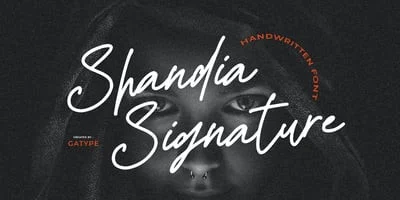
Shandia Signature Font
Shandia Signature Font is perfect for personal branding logos, handwritten wedding invitations, artisan business cards, boutique fashion labels, signature cocktail menus, creative agency identity, luxury stationery designs, personalized gift packaging, and intimate social media content. This elegant typeface brings authentic handwritten charm and personal sophistication to both digital and print design applications.
Shandia Signature Font is exciting because it captures the intimate beauty and personal authenticity of genuine handwritten signatures, making it an exceptional choice for designers who want to convey personal touch with authentic handcrafted elegance. Its flowing letterforms and signature character provide the perfect combination of personal intimacy and professional functionality, ensuring your projects communicate individuality, authenticity, and personal excellence that resonates with audiences seeking genuine human connection and handcrafted experiences.
The Shandia Signature Font family includes handwritten weight variations and signature elements, featuring regular and bold weights with complementary script styles, personal ligatures, and authentic handwriting flourishes. Each style maintains consistent signature aesthetics while offering flexibility for different personal applications, allowing designers to create intimate visual systems that reflect individual personality and handcrafted sophistication.
Whether you're designing for personal brands, artisan businesses, or intimate projects, Shandia Signature Font delivers authentic handwritten appeal and personal sophistication that connects with audiences seeking genuine individuality and handcrafted experiences. This premium typeface offers designers the personal charm and signature elegance needed to create designs that communicate individual identity, handwritten authenticity, and personal excellence effectively. The font's intimate character makes it perfect for personal branding, signature campaigns, and handcrafted applications where authentic personal credibility is essential. Download Shandia Signature Font today and personalize your creative projects with genuine signature sophistication and handwritten typography excellence that defines authentic design standards.